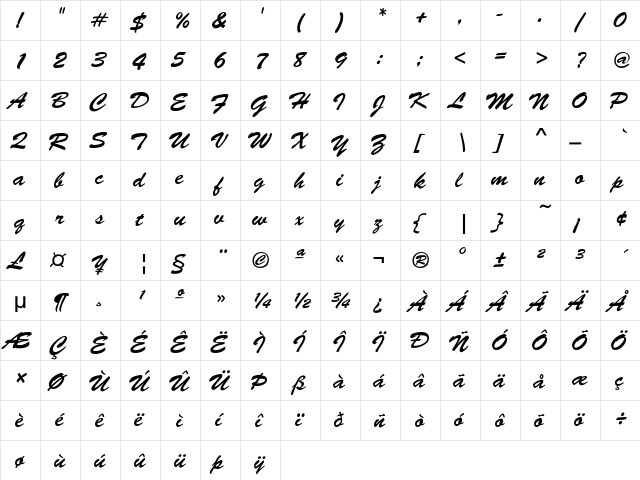
Brush-Script-Normal-Italic Regular
Design Context for Brush-Script-Normal-Italic Typeface
Brush-Script-Normal-Italic flows with the natural rhythm of handwritten lettering, making it ideal for designs that call for warmth and personal expression.
Font Pairing: Combine Brush-Script-Normal-Italic with a simple geometric sans for maximum contrast — the tension between flowing curves and clean structure is a classic typographic pairing.
Pro Tip: Pair Brush-Script-Normal-Italic with a clean sans-serif for supporting text. The contrast between fluid script and geometric structure creates an elegant typographic hierarchy.